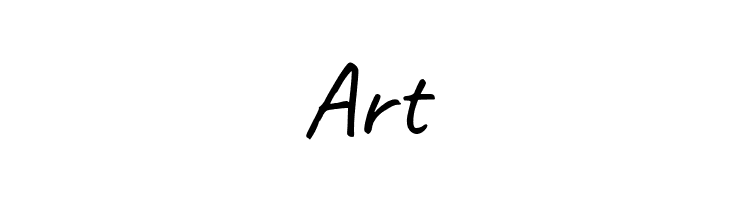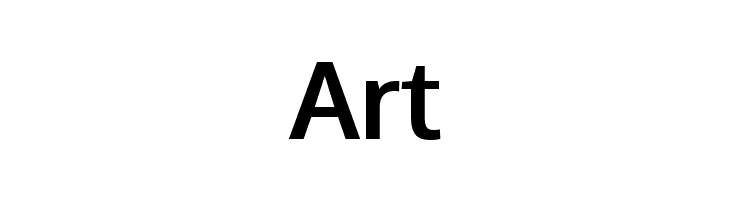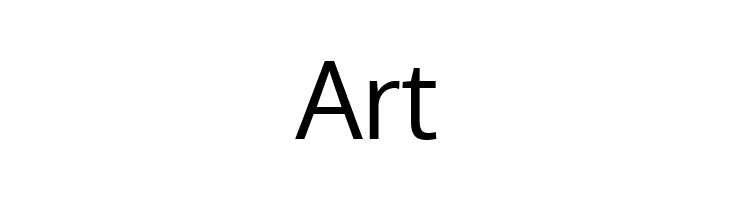
A modern, semi-bold italic sans-serif font with medium contrast and smooth strokes.
A bold, rounded font with a playful and friendly style.
A casual, handwritten-style font with smooth, flowing strokes.
A modern, geometric font with clean lines and a structured appearance.
A modern, light sans-serif font with clean lines and excellent readability.
A bold, modern sans-serif font with geometric shapes and uniform stroke width.
A modern, geometric sans-serif font with excellent legibility.
A barcode-style font with vertical line patterns for each character.
A bold, italic serif font with classic elegance and modern flair.
A playful, rounded font with a bold and friendly appearance.